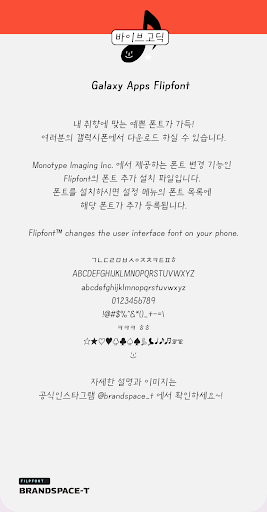
BST VibeSans
This typeface is a vibe of expressing "feeling various atmospheres" and "good fit anywhere" with the theme of space, coolness like cider, and lyrical tastes that sometimes come from the form of small magnets. "Soon, my, my own brand." It's Vibesans. Let's be together with a pretty smile.
+Hidden special characters ♨ Smile!